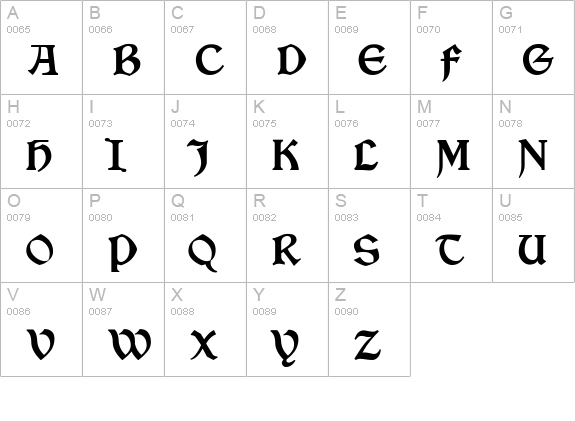
Vinque Font Details
Vinque font is a stunning and versatile typeface that exudes elegance and sophistication. With its clean lines and graceful curves, this font is perfect for a wide range of design projects, from branding and logo design to print materials and web design. The beauty of Vinque font lies in its versatility. Whether you're aiming for a modern and sleek look or a classic and timeless aesthetic, this font can effortlessly adapt to your needs. Its balanced proportions and carefully crafted letterforms ensure legibility and readability across various mediums and sizes. One of the best things about Vinque font is that it is free. Yes, you read that right – this exceptional font is freely available to download at FontsMarket.com. This means that you can incorporate this font into your designs without any cost, making it a valuable asset for both professional designers and aspiring creatives alike. So, what are you waiting for? Unlock the potential of your designs with Vinque font. Download it for free today at FontsMarket.com and experience the beauty and versatility of this remarkable typeface.